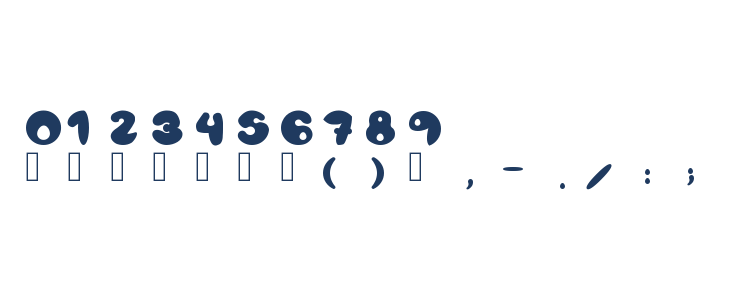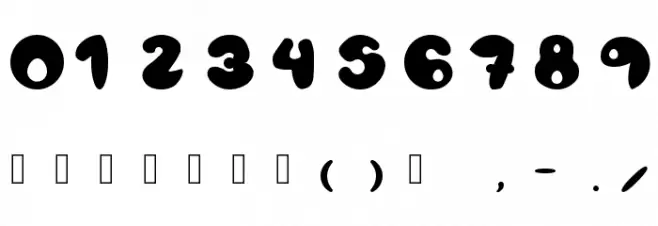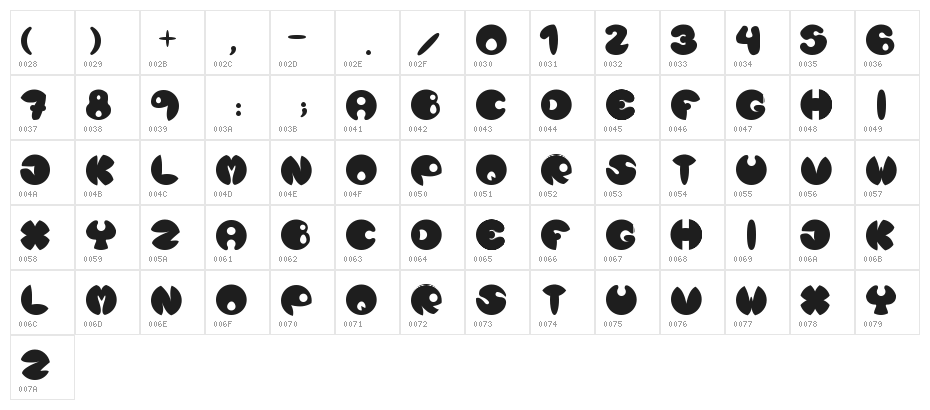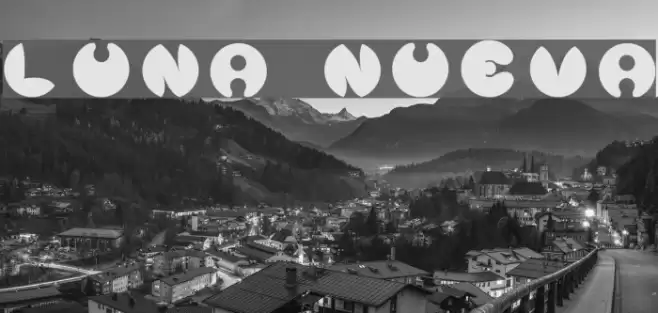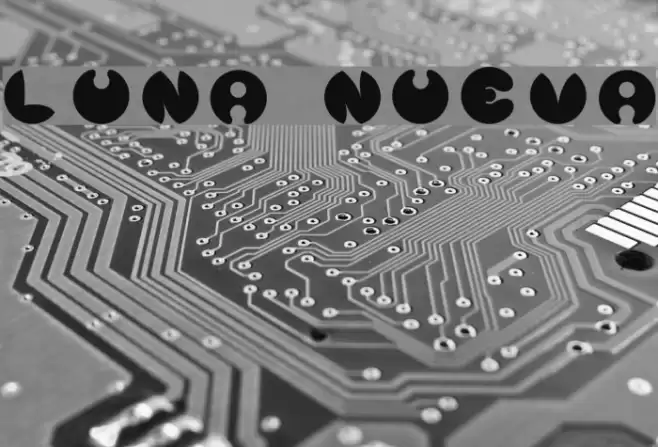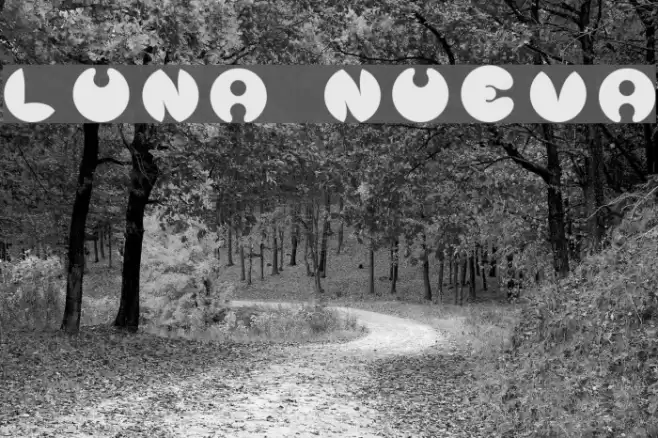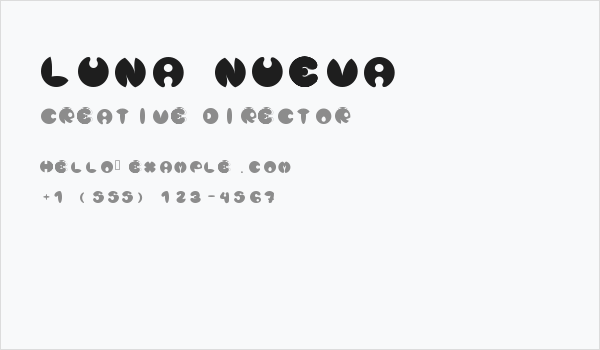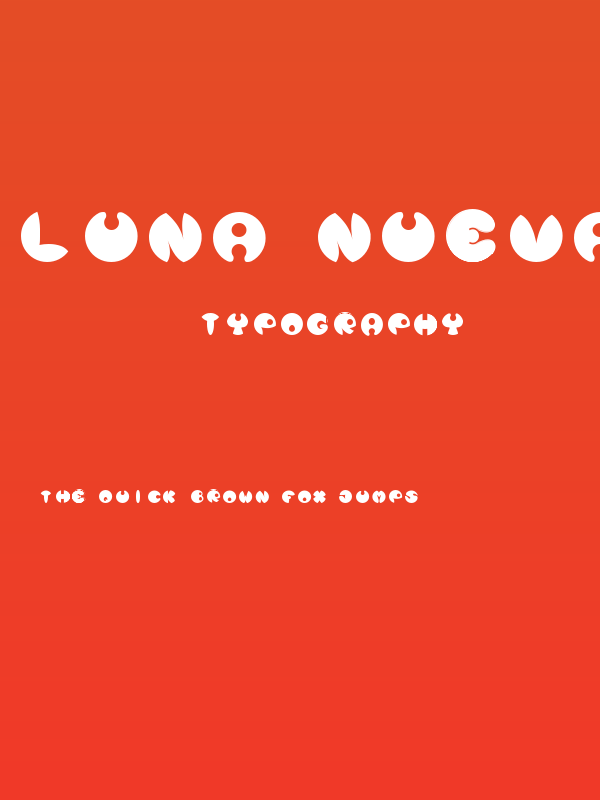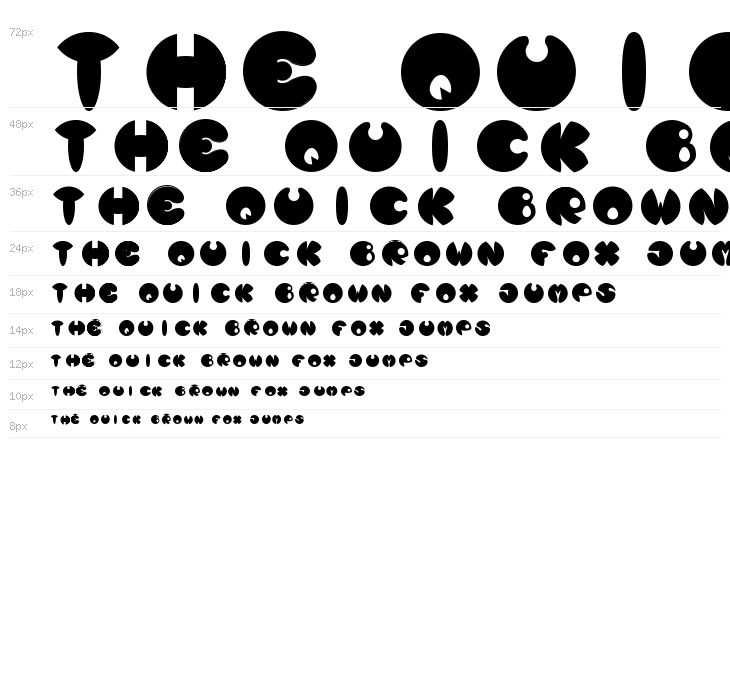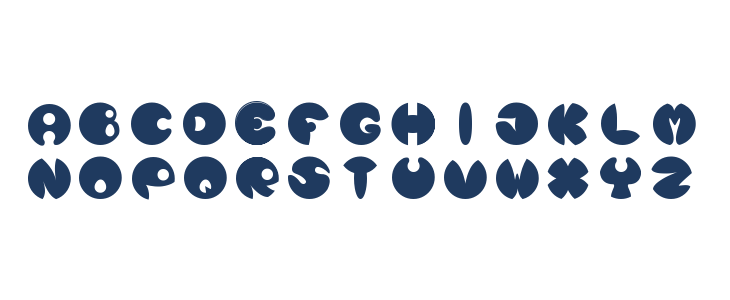
Luna Nueva Font
Luna Nueva Description
This font features a bold and playful design with a unique, circular motif that gives each character a distinct, whimsical appearance. The letters are formed with thick strokes and incorporate circular cutouts, creating a sense of movement and dynamism. The overall style is modern and artistic, making it stand out in any design. The numbers and special characters follow the same playful theme, ensuring consistency across all elements. This font is ideal for projects that require a bold statement and a touch of creativity.
| Use Case | Logos, Posters, Creative Titles |
| Proposed Projects | Ideal for children's books, playful branding, creative posters, and modern art projects. |